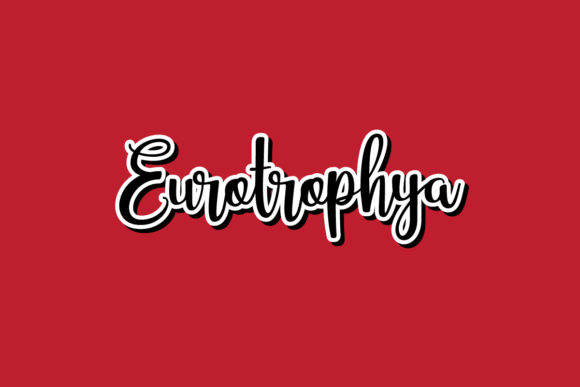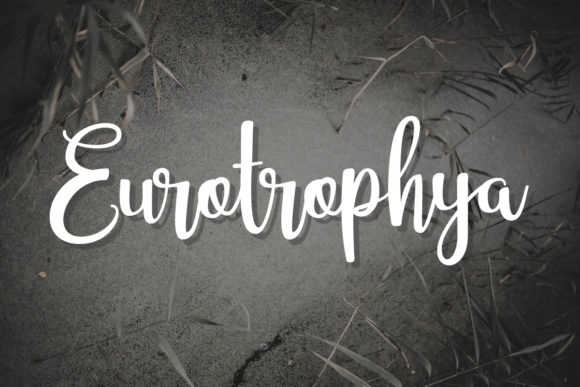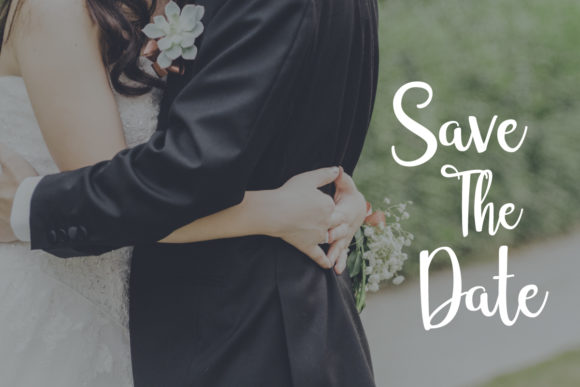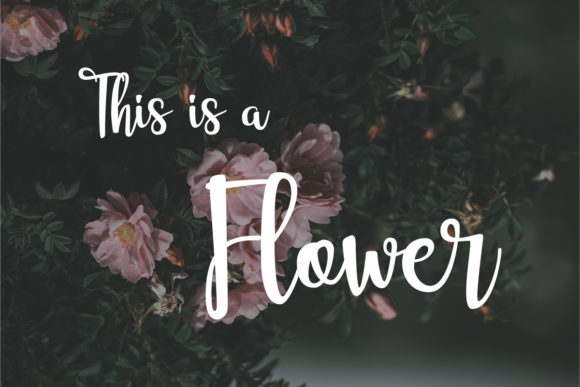
HomeScript FontsEurotrophya Font Script Fonts Eurotrophya Font FacebookXPinterestWhatsApp Eurotrophya Font Poster 2 Eurotrophya Font Poster 3 Eurotrophya Font Poster 4 About Eurotrophya Font Eurotrophya is a playful and elegant handwritten font, full of joy. Get inspired by its authentic charm. DOWNLOAD ON CREATIVE FABRICAThis font is sold and delivered by Creative Fabrica. Font Canyon may earn a commission if you buy through this link. People also explored Polyboy Bright Rose Font Metanoia Font Milespink Font Delgosha Font Caroline Font Summer Reward Font Rosecity Font Xylarion Font 326 0 TagsEurotrophya Font Previous articleTricky Tips FontNext articleLostmytalk Font LEAVE A REPLY Cancel reply Comment: Please enter your comment! Name:* Please enter your name here Email:* You have entered an incorrect email address! Please enter your email address here Website: Save my name, email, and website in this browser for the next time I comment. Personal Use Free Sunbright Font Personal Use Free Read more about this font Propaganda Personal Use Free Read more about this font Chandella Personal Use Free Read more about this font Nugo Sans Personal Use Free Read more about this font BLOG Where to Buy American Fonts Online in 2024 Where to Buy American Fonts Online: The Ultimate Guide for 2024 Looking for the perfect American font to elevate your design projects? You're in the... Best Fonts for YouTube Videos: Make Your Thumbnails Stand Out Top 7 Google Fonts Alternatives for Faster and Privacy-Friendly Web Design (2025) Top 10 Handwritten Fonts That Elevate Your Designs